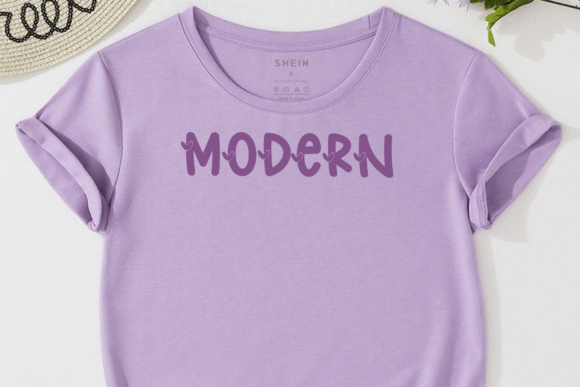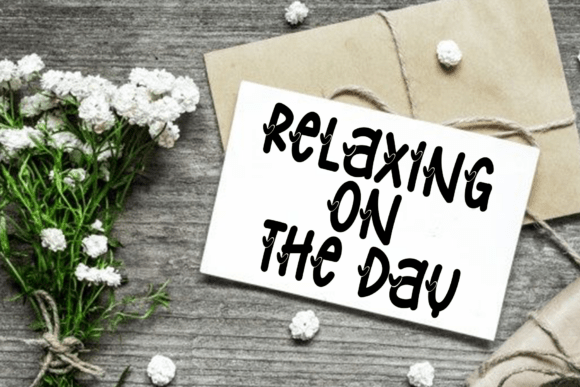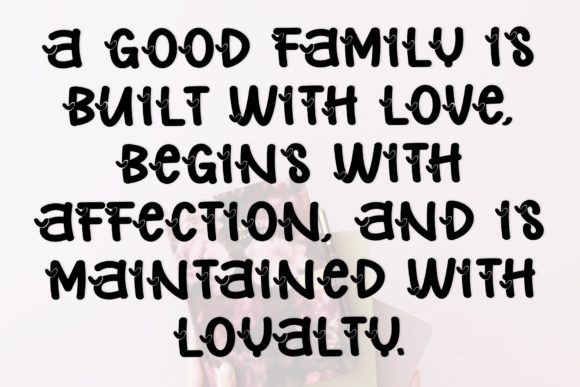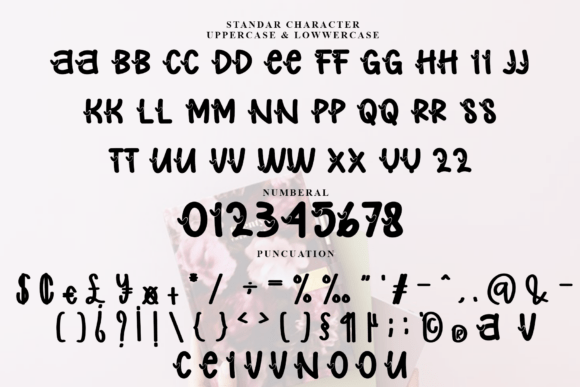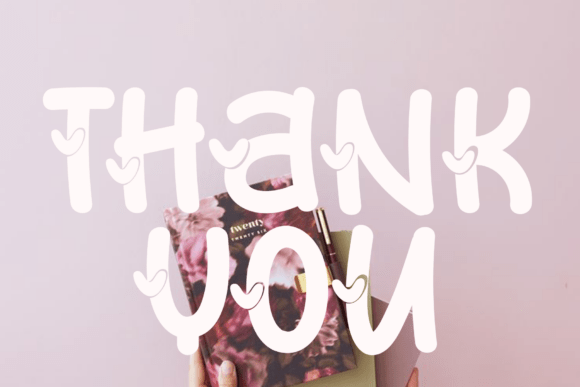
Introducing Happy Planner Font: The Perfect Blend of Organic Charm and Typographic Presence
Are you a designer or crafter looking for a font that can add a touch of friendliness and approachability to your projects? Look no further than the Happy Planner Font. This stylish handwritten font is designed to blend organic charm with a strong typographic presence, making it perfect for a wide range of applications.
What Makes Happy Planner Font So Unique?
Happy Planner Font features thick, solid strokes with a distinct “bouncy” rhythm that gives it a friendly and approachable character. This unique combination of organic and structured elements makes it stand out from other fonts on the market. The font’s well-balanced proportions ensure it remains impactful even in busy designs, making it perfect for use in a variety of contexts.
Part of the “Unique and Professional” Collection
Happy Planner Font is part of the “Unique and Professional” collection, a curated selection of fonts designed to help you create stunning visual content. This collection is perfect for designers and crafters who want to add a touch of sophistication and elegance to their projects. With Happy Planner Font, you can create outdoor lifestyle branding, organic product packaging, travel-themed graphics, and rustic event invitations that exude a sense of smart, adventurous handmade style.
Perfect for Outdoor Lifestyle Branding and More
Happy Planner Font is perfectly suited for outdoor lifestyle branding, organic product packaging, travel-themed graphics, and rustic event invitations. Its friendly and approachable character makes it ideal for brands that want to convey a sense of adventure and approachability. Whether you’re designing a logo, brochure, or social media graphics, Happy Planner Font is sure to make your content stand out.
Key Features of Happy Planner Font
- Thick, solid strokes: Happy Planner Font features thick, solid strokes that give it a strong typographic presence.
- Distinct “bouncy” rhythm: The font’s unique “bouncy” rhythm gives it a friendly and approachable character.
- Well-balanced proportions: Happy Planner Font’s well-balanced proportions ensure it remains impactful even in busy designs.
- Perfect for handmade and rustic designs: The font’s organic charm makes it perfect for handmade and rustic designs.
How to Use Happy Planner Font in Your Designs
Happy Planner Font is easy to use and can be incorporated into a variety of design projects. Here are a few ideas to get you started:
- Logos and branding: Use Happy Planner Font to create a logo or brand identity that exudes a sense of friendliness and approachability.
- Packaging design: Add a touch of organic charm to your product packaging with Happy Planner Font.
- Social media graphics: Use Happy Planner Font to create eye-catching social media graphics that stand out from the crowd.
- Event invitations: Create rustic and charming event invitations with Happy Planner Font.
Happy Planner Font is a stylish handwritten font that blends organic charm with a strong typographic presence. Its unique combination of thick, solid strokes and a distinct “bouncy” rhythm makes it perfect for designers and crafters who want to add a touch of friendliness and approachability to their projects. With its well-balanced proportions and handmade style, Happy Planner Font is sure to become a go-to font in your design arsenal.